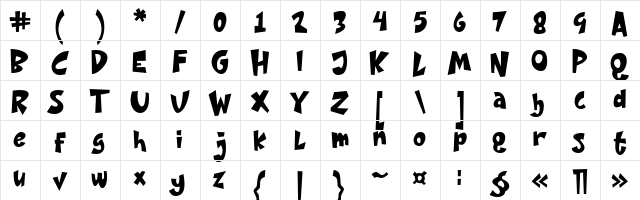
Night House Regular
| Designer | Letter Battoyart 2019 - Ribut Riyayat |
Design Context for Night House Typeface
Night House is a composed and adaptable typeface that performs quietly and consistently across a wide range of design contexts.